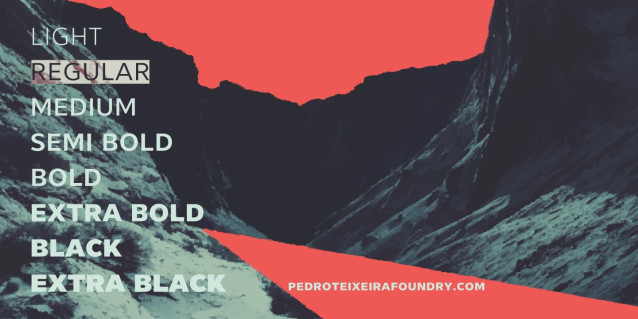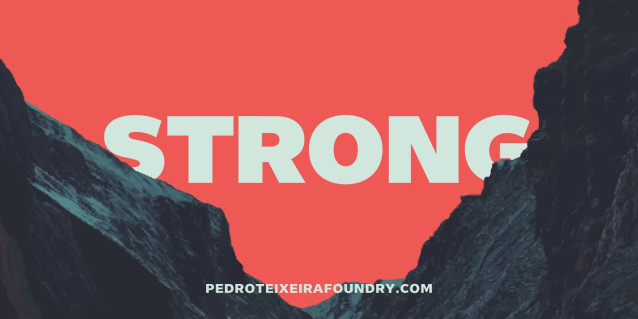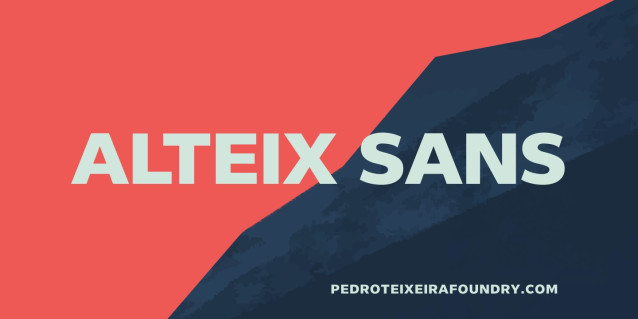
Alteix Sans Font
Alteix Sans font family is designed to bring personality and polish to any project—whether you’re building a sleek tech website, designing a bold corporate logo, or laying out a futuristic sci-fi book cover. With a smooth, balanced aesthetic, it’s perfect for everything from business cards and posters to UI design and coding interfaces. Its friendly yet premium look makes it a go-to choice for startups, creatives, and businesses who want to stand out with style and clarity. Whether you’re working on branding, headlines, or digital products, this typeface adapts effortlessly to modern, high-impact design needs.